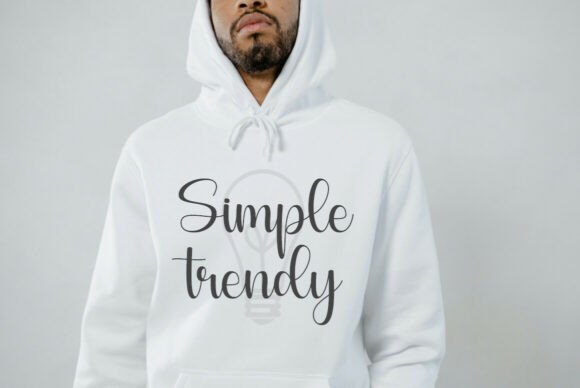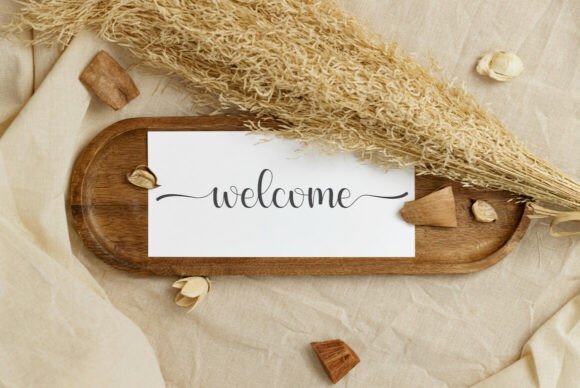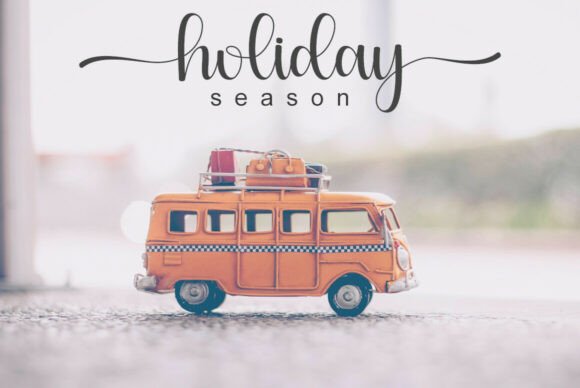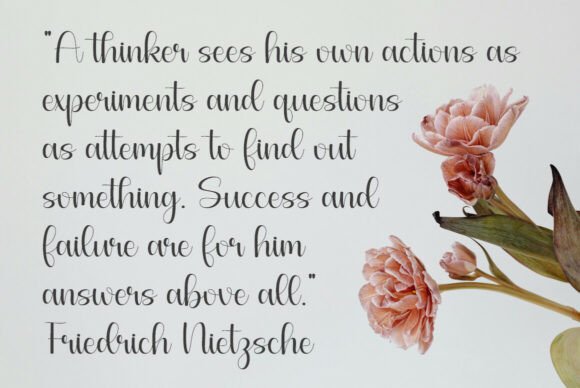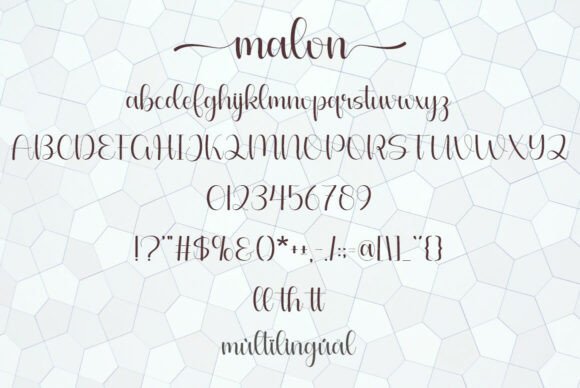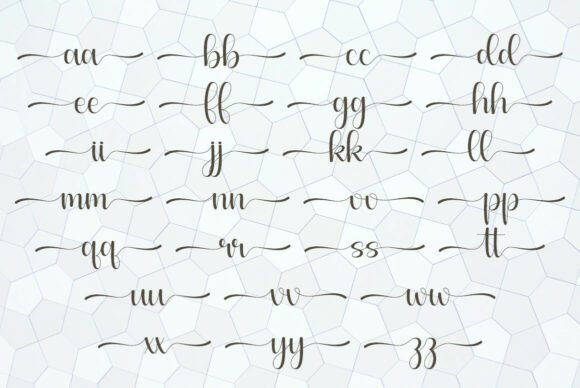
Introduction to Malon Font
As you sit down to plan your next creative project, the search for the perfect design resource can be overwhelming. You’ve got a vision in mind, but the right font to bring it to life seems elusive. That’s where the Malon Font comes in – a stylish and elegant handwritten font that’s sure to elevate your designs and leave a lasting impression.
Imagine a beautiful wedding invitation, complete with a transparent background and delicate script that seems to dance across the page. The Malon Font is the perfect tool for designers looking to add a touch of high quality and sophistication to their work. With its wide range of glyphs and alternates, you can customize your design to fit your unique style and vision.
Key Features of Malon Font
- High-quality design resource suitable for creative projects, with a transparent background for seamless integration.
- Features a large character set, including uppercase and lowercase letters, numbers, and punctuation marks, making it a versatile design tool.
- Malon Font is a unique and modern design resource, perfect for adding a touch of creativity to any project, from branding and marketing materials to digital art and graphics.
Honest Review: Malon Font
As a designer, I’m always on the lookout for high-quality design resources to elevate my creative projects. Recently, I stumbled upon the Malon Font, and I’m excited to share my thoughts on it.
What works well: ✨ The Malon Font has a clean and modern design aesthetic that’s perfect for a variety of projects. The font is highly customizable, with a wide range of weights and styles to choose from. The transparent background option is also a huge plus, allowing me to easily integrate the font into my designs.
Here are some key features I like about the Malon Font:
- High-quality design with a modern aesthetic
- Wide range of weights and styles available
- Transparent background option for easy integration
However, there are a few limitations: ⚠️ The font may not be suitable for very small text sizes, as the characters can become pixelated. Additionally, the font may not be compatible with all operating systems.
Overall, I’m impressed with the Malon Font. While it’s not perfect, its strengths far outweigh its limitations. With its high-quality design and customizable options, I can see it becoming a staple in my design toolkit.
Tips for Getting the Most Out of Malon Font
To maximize the impact of Malon Font in your design project, consider the following tips:
- Pair Malon Font with a contrasting background color to make the text stand out.
- Use Malon Font in combination with other design elements, such as graphics and images.
Malon Font is suitable for a wide range of design projects, including:
- Wedding invitations and event materials.
- Business cards and marketing materials.
- Blog posts and articles.